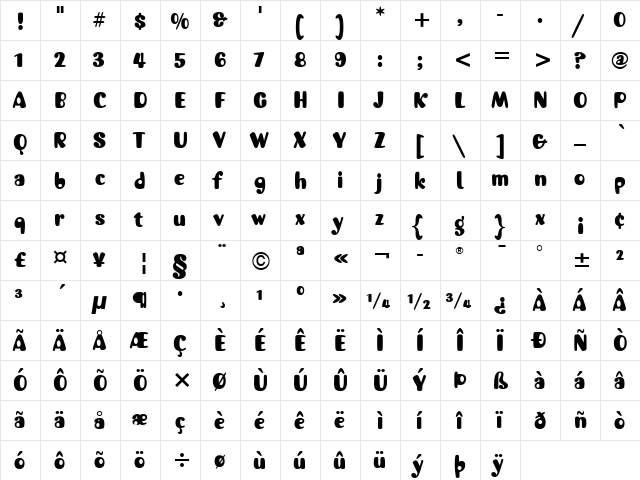
Jellybaby ITC Bold
Design Context for Jellybaby ITC Typeface
Jellybaby ITC is a composed and adaptable typeface that performs quietly and consistently across a wide range of design contexts. Its bold stroke weight gives it real presence on the page.
Pro Tip: Use Jellybaby ITC in both headline and body roles to test its range before committing to a single application.